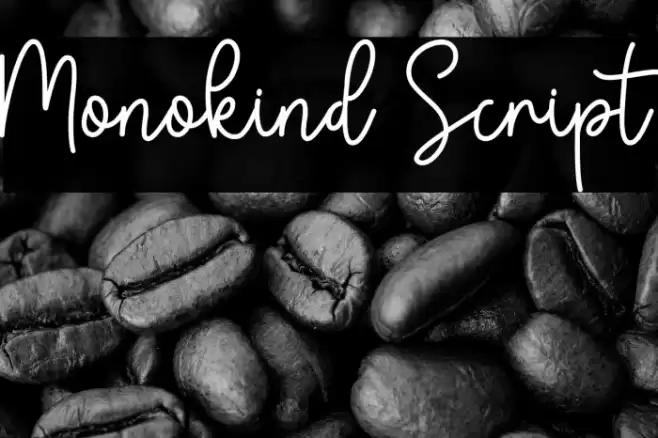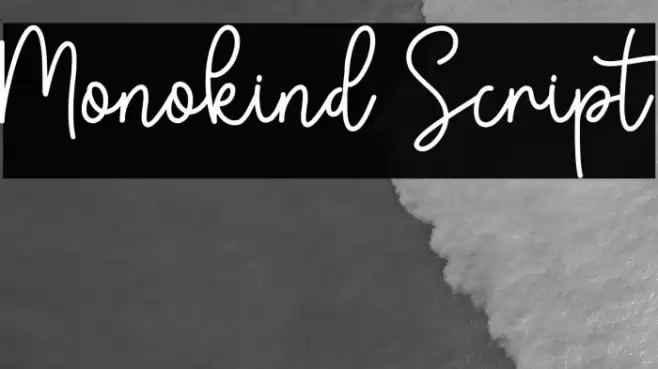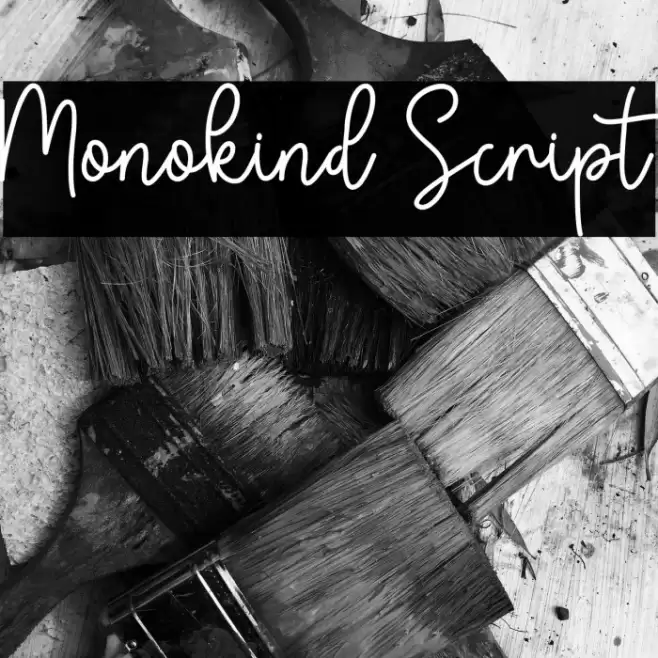
Monokind Script Font
Monokind Script Description
This script font features a playful and flowing design, characterized by its smooth, continuous strokes and elegant curves. The uppercase letters are tall and slender, with a slight slant that adds a dynamic feel. The lowercase letters are more rounded and connected, creating a harmonious and fluid appearance. The font maintains a consistent stroke width, giving it a balanced and cohesive look. Special characters are integrated seamlessly, maintaining the overall aesthetic. This font exudes a casual yet sophisticated vibe, making it versatile for various creative applications.
A playful and flowing script font with smooth, continuous strokes and elegant curves from Regular fonts.
- Font: Monokind Script
- Proposed Projects: Ideal for wedding invitations, greeting cards, branding projects, and social media graphics.
- Use Case: Logos, Headlines, Invitations